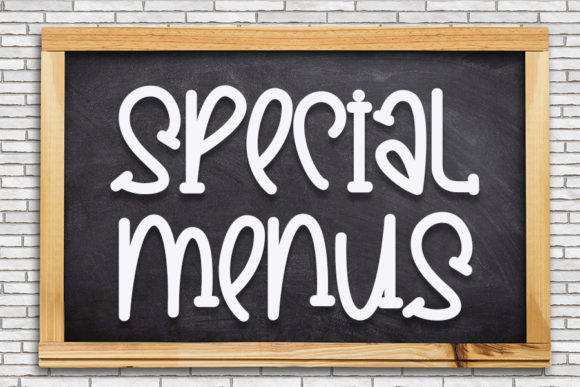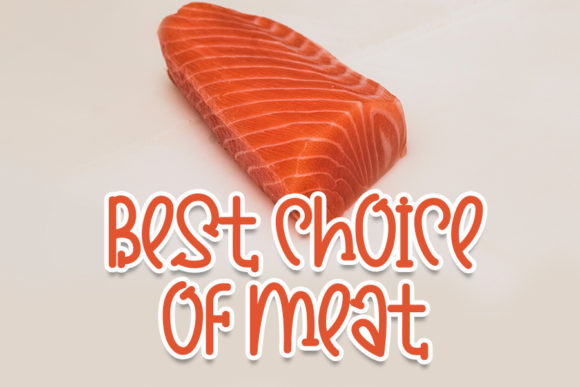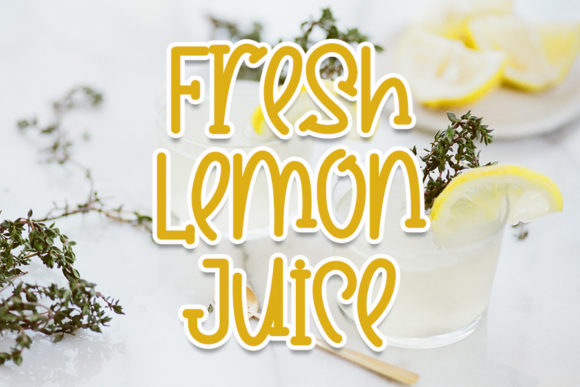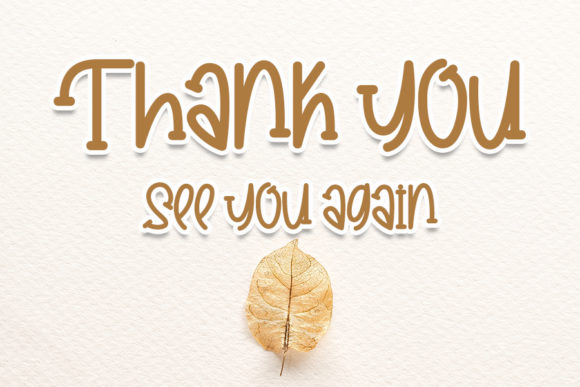
Introducing Hallimuna Font: Elevate Your Designs with Style and Uniqueness
In the world of typography, a font can make or break a design. It’s the foundation upon which your creative vision is built, and choosing the right one can be a daunting task. If you’re on the hunt for a stylish and modern display font that can adapt to a wide variety of designs, look no further than Hallimuna. This incredibly unique font is about to become your new go-to for making a statement.
What Makes Hallimuna Stand Out?
Hallimuna is not just another font; it’s an experience. Its stylish and modern design ensures that your projects stand out from the crowd, making it perfect for designers and crafters who want to leave a lasting impression. Whether you’re working on a branding project, a website, or marketing materials, Hallimuna brings a friendly and approachable vibe that engages audiences.
Key Features of Hallimuna Font
- Stylish and Modern Design: Hallimuna boasts a contemporary look that fits well with current design trends, ensuring your projects look fresh and modern.
- Unique and Friendly: The font’s unique design doesn’t just grab attention; it also feels friendly and approachable, making it versatile for various design applications.
- Adaptability: One of the standout features of Hallimuna is its incredible adaptability. It can be used across a wide variety of designs, from elegant and sophisticated to fun and playful.
- Legibility: Despite its stylized appearance, Hallimuna maintains high legibility, ensuring your message is conveyed clearly and effectively.
Hallimuna is a dream come true for designers and crafters. Its versatility means it can be used in numerous contexts:
- Branding: Create memorable logos and brand identities that stand out.
- Web Design: Elevate your website’s aesthetic with a modern and stylish font.
- Marketing Materials: Make your brochures, flyers, and posters pop with a unique and engaging typeface.
- Social Media Graphics: Stand out on social media with eye-catching text overlays and graphics.
- Crafting Projects: Add a professional touch to your handmade crafts, journals, and DIY projects.
Tips for Using Hallimuna Effectively
To get the most out of Hallimuna, consider the following tips:
- Experiment with Sizes: Hallimuna looks great in various sizes, from large display headers to smaller body text.
- Play with Colors: Don’t be afraid to experiment with different colors and gradients to match your brand’s aesthetic.
- Mix and Match: Combine Hallimuna with other fonts for a unique and dynamic look.
Hallimuna font is a game-changer for anyone looking to elevate their designs with a stylish, modern, and unique display font. Its friendly vibe and adaptability make it a valuable addition to any designer’s toolkit. Whether you’re working on a professional project or a personal crafting endeavor, Hallimuna is sure to make your work shine. So why wait? Dive into the world of Hallimuna and discover a new level of design possibilities.